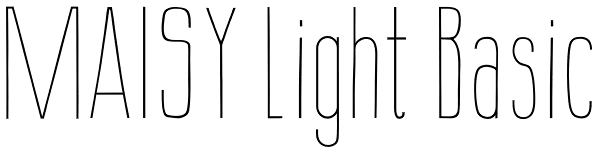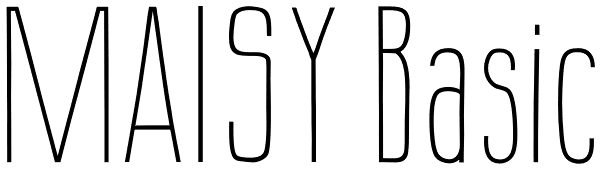
MAISY
A chic and simple geometric hand font. Maisy comes with a set of icons and is perfect for fashion, marketing, books, websites, magazines, film and television. Maisy comes in two font styles (basic/wide) and four weights (light/regular/bold/black).
MAISY Icons
MAISY Light Wide
MAISY Wide
MAISY Black Wide
MAISY Bold Wide
MAISY Light Basic
MAISY Bold Basic
MAISY Basic
MAISY Black Basic